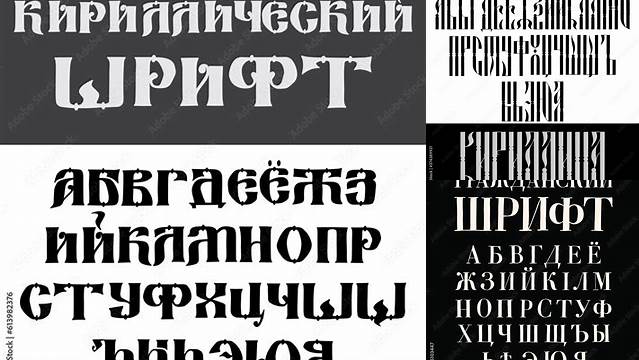
Russian Fonts For Adobe: A Complete Guide
Hey guys! Ever found yourself needing to add that perfect Cyrillic flair to your designs in Adobe but felt lost in a sea of fonts? You're not alone! Finding the right Russian fonts for your projects in Adobe Creative Suite can feel like a mission, but don't worry, we've got you covered. This comprehensive guide will walk you through everything you need to know, from understanding Cyrillic typography to selecting and using fonts effectively in Adobe applications. Let's dive in and explore the world of Russian fonts in Adobe!
Understanding Cyrillic Typography
Before we jump into finding Russian fonts for Adobe, let's take a moment to understand the basics of Cyrillic typography. The Cyrillic script is used by many languages, including Russian, Ukrainian, Bulgarian, and Serbian, each with its unique characters and nuances. Understanding these differences is crucial when choosing a font that accurately represents the intended language and style. The history of Cyrillic is rich, evolving from the Greek uncial script, and this historical context often influences the design and feel of modern Cyrillic fonts. Knowing whether you need a font that feels traditional, modern, or somewhere in between will significantly narrow down your search. For example, some fonts might lean towards a more calligraphic style, reminiscent of old manuscripts, while others are designed with clean, geometric lines for contemporary use. By understanding the nuances of Cyrillic, you'll be better equipped to choose fonts that not only look good but also accurately convey your message.
Historical Context of Cyrillic Script
The Cyrillic script has a fascinating history, dating back to the 9th century. It was developed during the First Bulgarian Empire and is based on the Greek uncial script, with additions for sounds not present in Greek. The script is named after Saint Cyril, one of the two Byzantine Greek brothers credited with its creation. Over the centuries, the Cyrillic script has evolved and diversified, leading to regional variations and adaptations for different languages. Understanding this historical context is essential when choosing Russian fonts for Adobe, as it influences the design and stylistic elements of various typefaces. For instance, fonts inspired by early Cyrillic manuscripts often feature elaborate serifs and calligraphic strokes, while modern interpretations tend to be more streamlined and geometric. Knowing the history behind the script can help you select a font that aligns with your project's aesthetic and communicates the intended message effectively.
Key Differences Between Cyrillic and Latin Alphabets
One of the first things to grasp when working with Russian fonts in Adobe is the fundamental difference between the Cyrillic and Latin alphabets. While some letters look similar, their sounds and usage can vary significantly. The Cyrillic alphabet includes characters that don't exist in Latin, and vice versa. This means that a font designed for Latin script might not automatically support Cyrillic characters, or if it does, the Cyrillic glyphs might not be well-designed or harmonized with the Latin ones. Key differences include letters like 'Я', 'Ж', 'Щ', and 'Ы', which have no direct equivalents in the Latin alphabet. Understanding these differences is crucial for ensuring your text is legible and professional. When selecting Russian fonts for Adobe, always check the character set to ensure it includes all the necessary Cyrillic glyphs and that they are designed in a way that complements the overall style of the font. Neglecting this can lead to awkward-looking text or even misinterpretations of your message.
Common Mistakes in Cyrillic Typography
Working with Russian fonts in Adobe can be tricky, and there are several common mistakes to watch out for. One frequent error is using a Latin font and hoping it will cover Cyrillic characters adequately. While some fonts might include basic Cyrillic support, the glyphs are often poorly designed or don't match the style of the Latin characters. This can result in a jarring visual inconsistency. Another mistake is overlooking the specific requirements of the language you're working with. For example, Serbian Cyrillic includes characters not used in Russian, and vice versa. Always ensure the font you choose supports all the characters needed for your text. Kerning issues are also common, where the spacing between letters can look uneven. Adobe's typography tools can help adjust kerning, but it's best to start with a font that has well-designed spacing. Finally, avoid using overly decorative or illegible fonts for body text. While a stylized font might look great in a headline, it can hinder readability in longer passages. By being aware of these common pitfalls, you can ensure your Cyrillic typography looks professional and polished in your Adobe projects.
Searching for Specific Styles of Russian Fonts
When searching for Russian fonts in Adobe Fonts, it's helpful to think about the specific style you need. Cyrillic fonts, just like Latin fonts, come in a variety of styles, each with its own unique character and suitability for different projects. Serif fonts, with their small decorative strokes, often convey a sense of tradition and formality, making them ideal for body text or projects that require a classic look. Sans-serif fonts, on the other hand, have a cleaner, more modern appearance and are often used for headlines or designs that need a contemporary feel. Script fonts mimic handwriting and can add a personal, elegant touch, but they should be used sparingly and for display purposes only. Beyond these basic categories, there are also display fonts, which are designed to be eye-catching and are perfect for logos, posters, or other large-format designs. To search for specific styles in Adobe Fonts, use the style filters in the browsing interface. You can select multiple styles to explore a wider range of options or focus on a single style to narrow your search. By knowing the style you need, you can efficiently find Russian fonts that perfectly match your project's aesthetic.
Top Recommended Russian Fonts in Adobe Fonts
Adobe Fonts boasts a fantastic selection of Russian fonts, but to get you started, here are a few top recommendations. For a classic, elegant serif option, consider "Kazimir". It's highly legible and works beautifully for body text. If you're after a modern sans-serif, "Fira Sans Cyrillic" is a solid choice. Its clean lines and versatility make it suitable for a wide range of projects. For something with a bit more personality, check out "Neucha", a friendly, hand-drawn-style font that's perfect for informal designs. If you need a bold display font, "Bebas Neue Cyrillic" is an excellent option. Its tall, narrow letters make a strong statement. Another great choice is "PT Sans Cyrillic", a highly versatile font that works well in both headlines and body text. These are just a few examples, and the best font for your project will depend on your specific needs and aesthetic preferences. However, these recommendations are a great starting point for exploring the diverse range of Russian fonts available in Adobe Fonts. Remember to preview the fonts and experiment with different styles to find the perfect fit for your design.